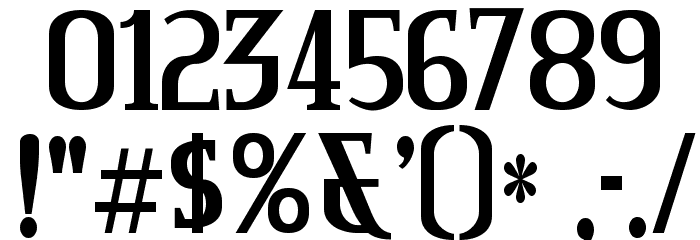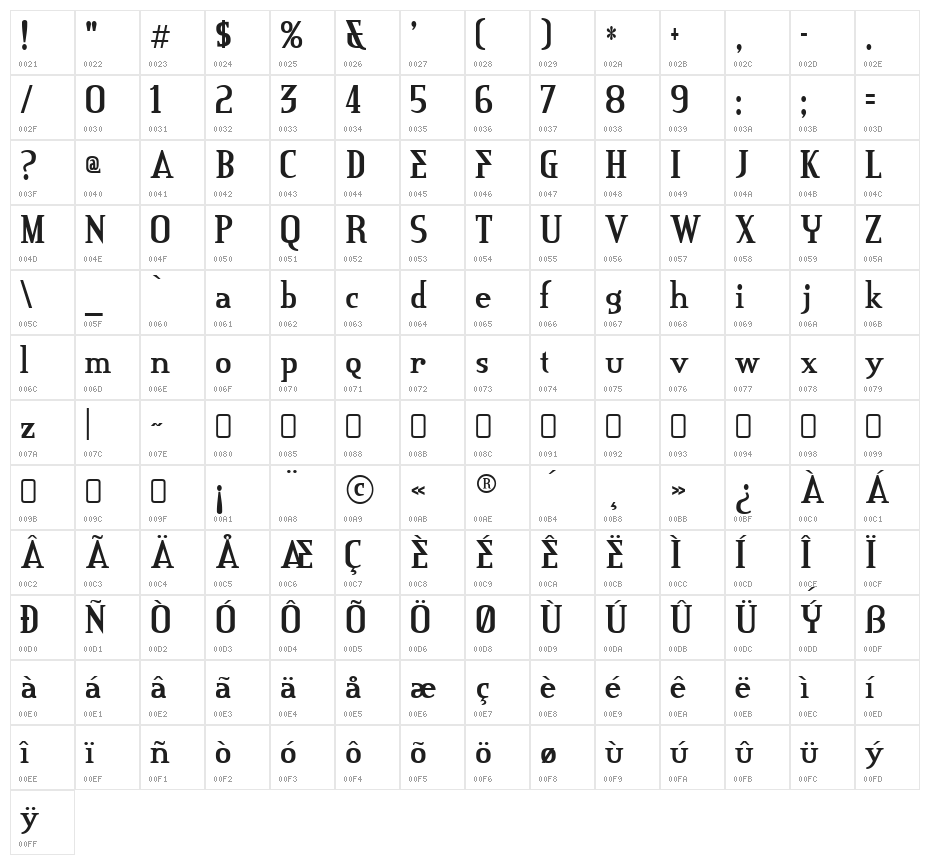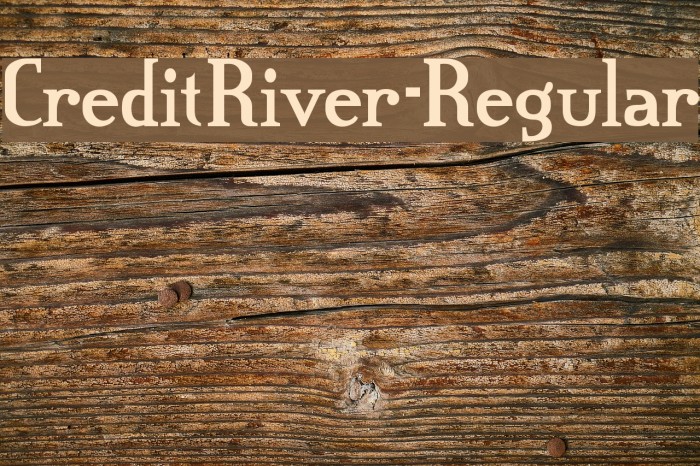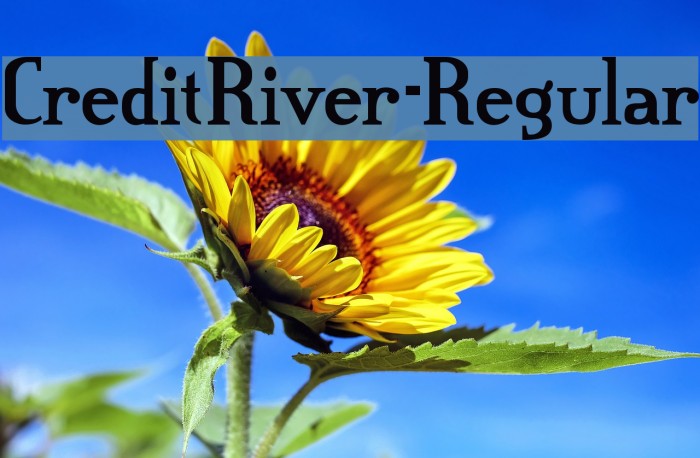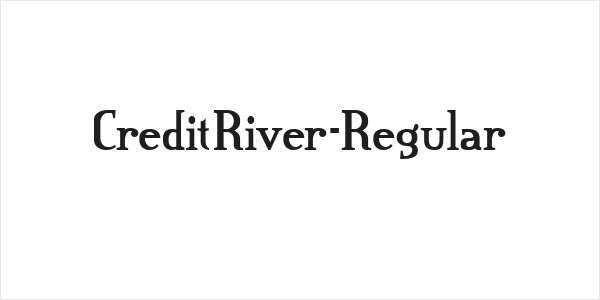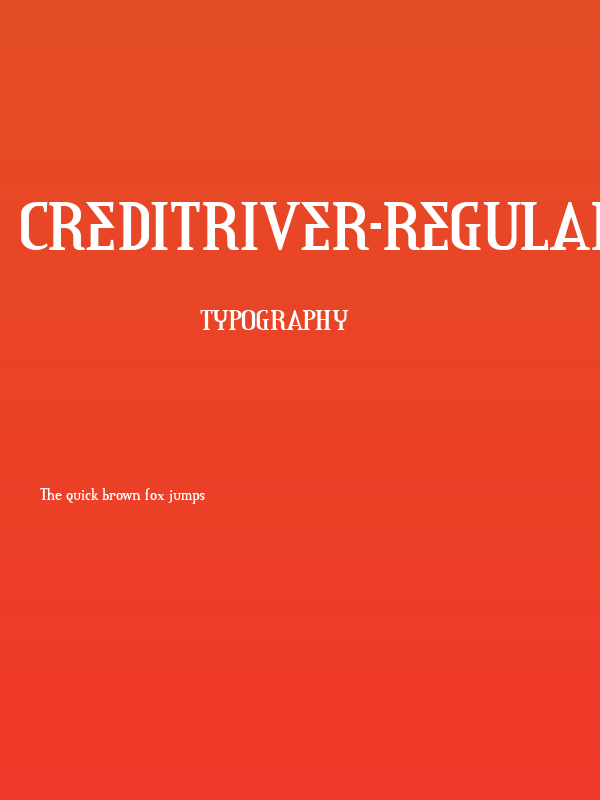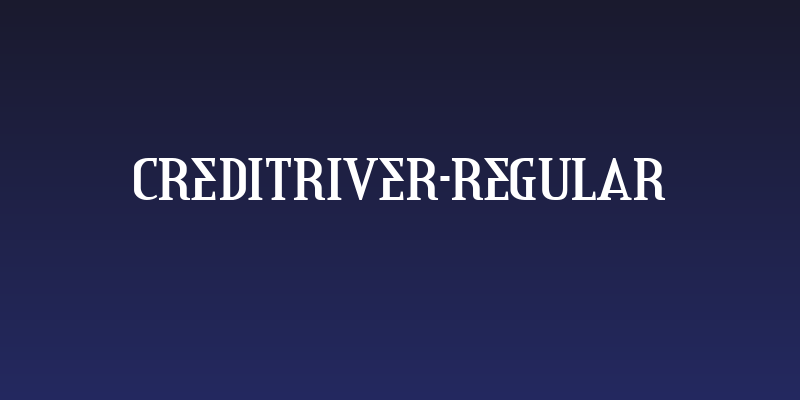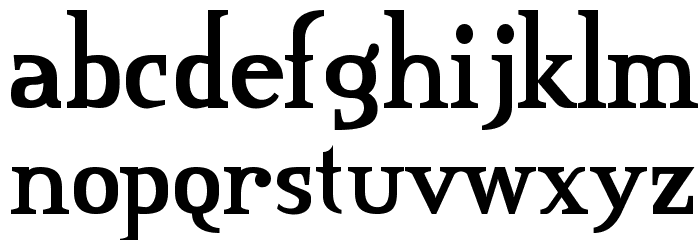
CreditRiver-Regular Font
CreditRiver-Regular Description
This font features a bold and striking design with a strong presence. The uppercase letters are characterized by sharp, angular serifs that give a sense of authority and elegance. The lowercase letters maintain a consistent style, with a slightly more rounded appearance that complements the uppercase. Numbers are clear and easy to read, with a uniform thickness that ensures legibility. Special characters are designed with the same attention to detail, making them stand out while remaining cohesive with the rest of the typeface. Overall, this font combines traditional serif elements with a modern twist, making it versatile for various design applications.
| Use Case | Headlines, Logos, Editorial design |
| Proposed Projects | Ideal for branding, editorial design, book covers, and headlines where a strong, authoritative presence is desired. |